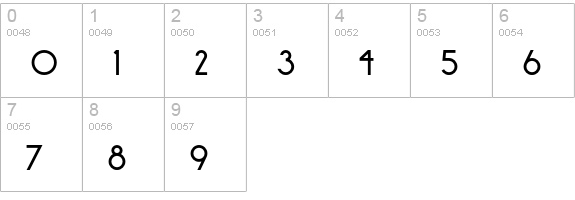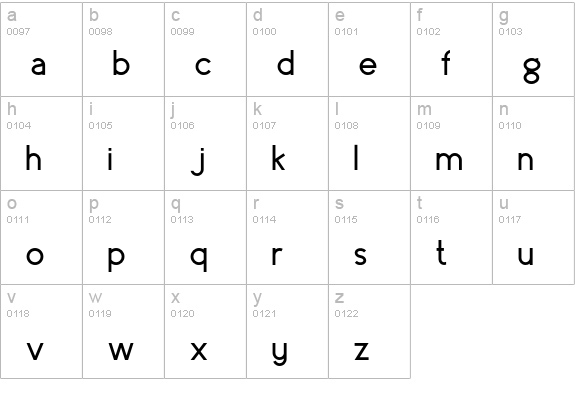
surrounding__.) regular Font Details
surrounding__.) regular is the standard, neutral variant in the surrounding__.) typeface family \xE2\x80\x94 well suited to general body text, paragraphs, and standard typographic work.
Surrounding__ is a beautifully designed font that exudes elegance and sophistication. With its sleek lines and modern aesthetic, this font is perfect for adding a touch of class to any project. Whether you're designing a logo, creating a poster, or crafting a website, Surrounding__ is sure to make a statement. Best of all, this font is available for free download at FontsMarket.com, making it easily accessible for all your design needs. Don't miss out on the opportunity to elevate your work with the timeless style of Surrounding__.